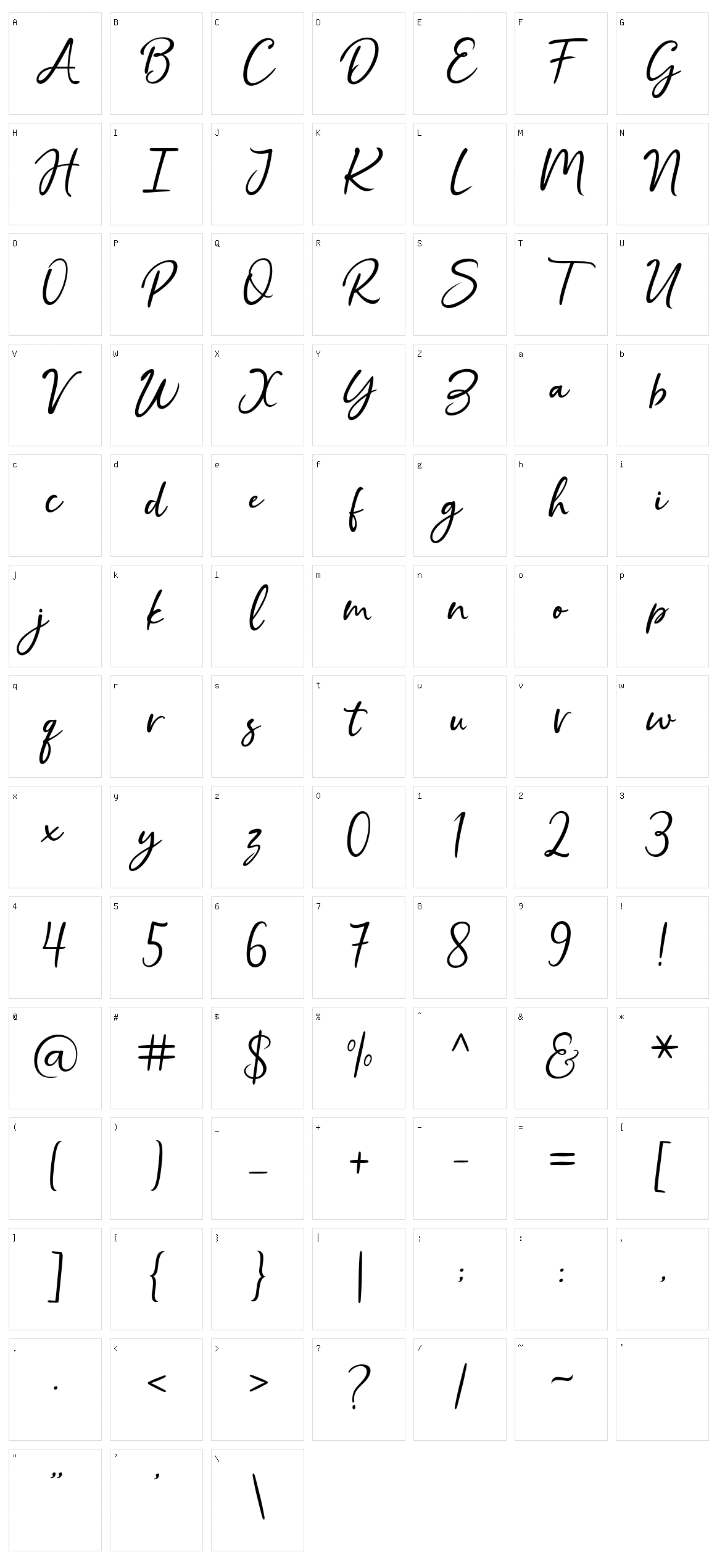
The free font Cristalistic Script is carefully designed by Scoothtype, showcasing a thoughtful balance of creativity and usability and falls under the Script font style. When you download the ZIP file, it contains only 39.37 KB of font files, making it lightweight and quick to download. Please review the license details below to understand permitted usage and distribution rights. If license information is not available, we recommend using this font for personal projects only or contacting the author directly for commercial usage permissions.